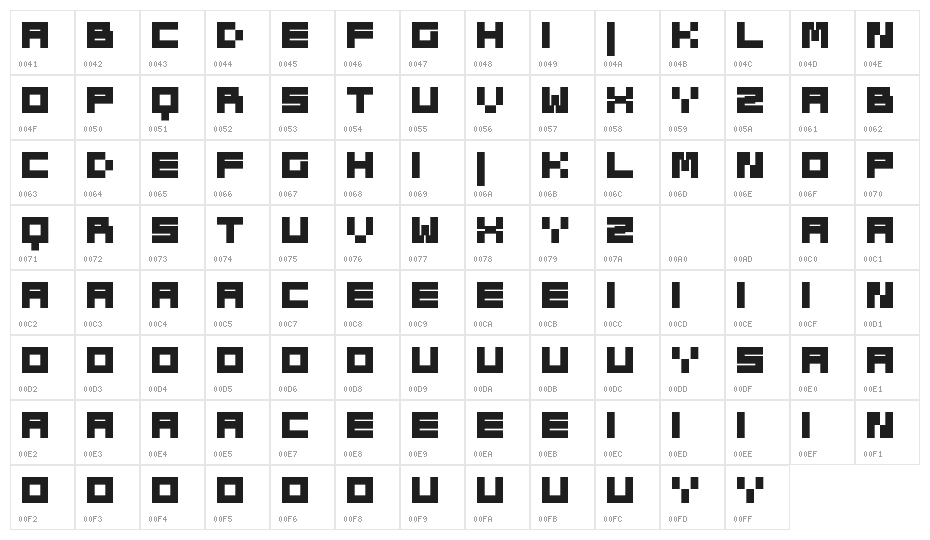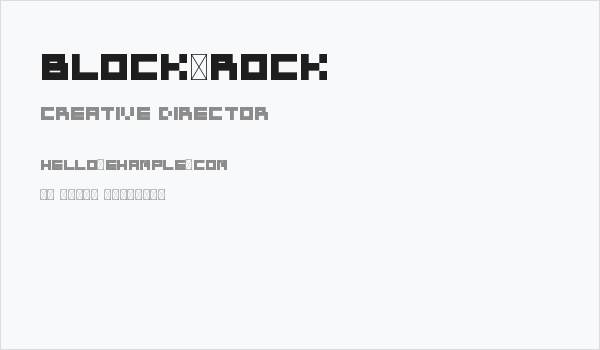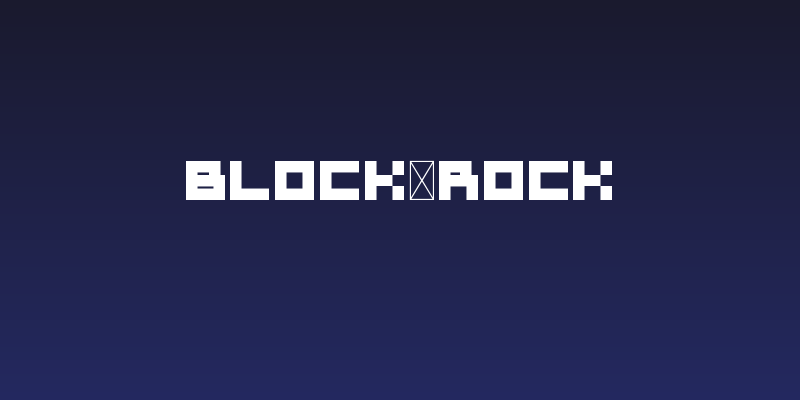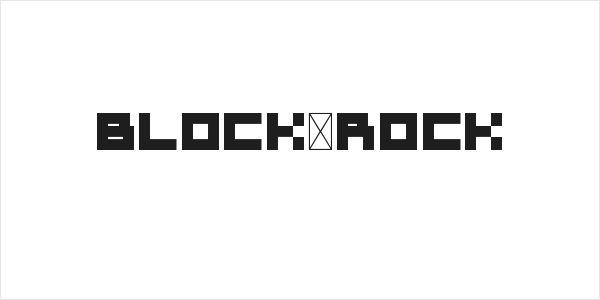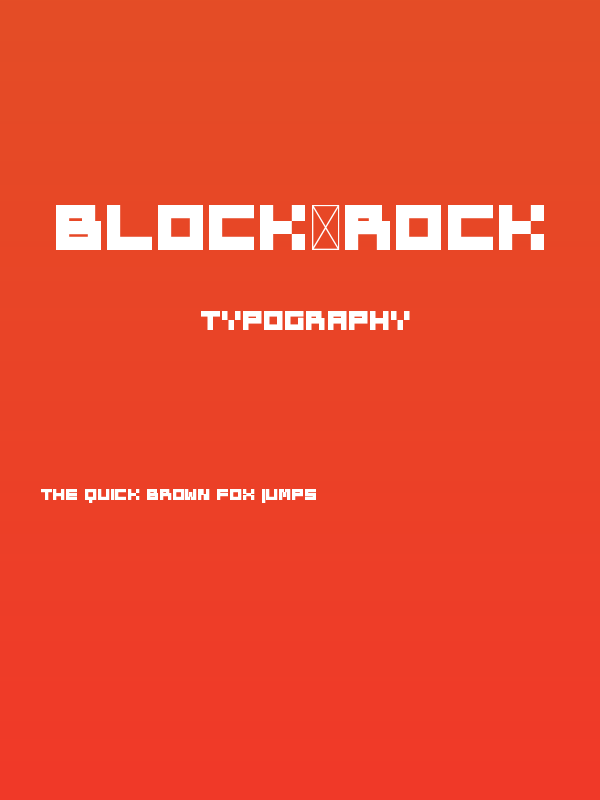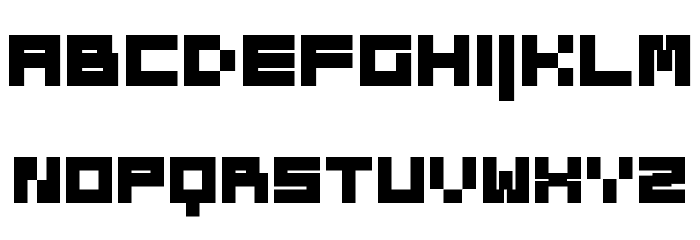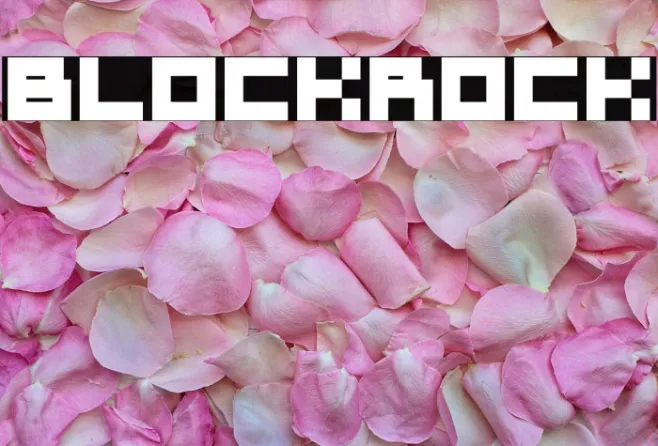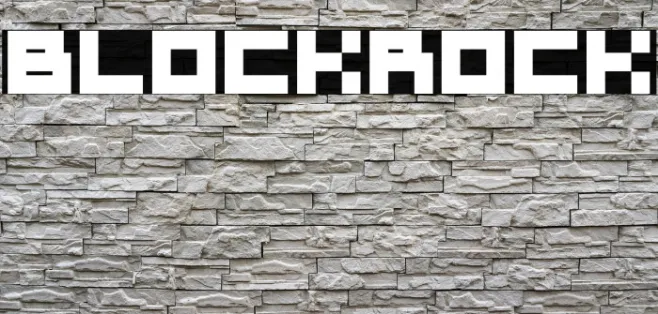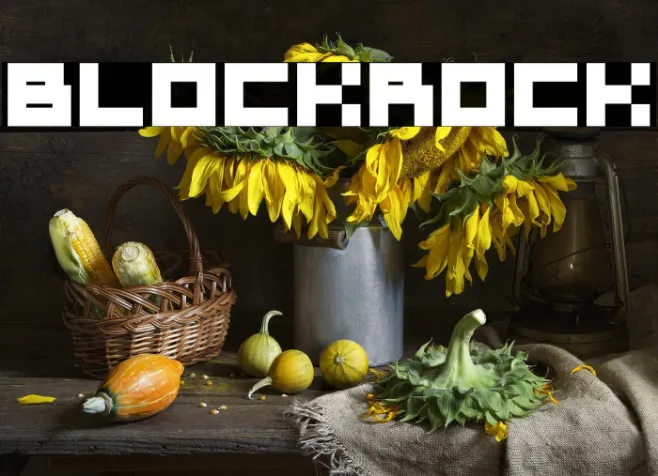
Block-Rock Font
Block-Rock Description
This font features a bold, blocky design with a distinctly geometric style. Each character is constructed with sharp angles and straight lines, creating a uniform and cohesive appearance. The uppercase letters are particularly striking, with a strong presence that commands attention. The font's design is reminiscent of digital or pixel art, making it ideal for projects that require a modern, tech-inspired aesthetic. The consistent thickness of the strokes throughout the characters ensures readability, while the lack of curves gives it a mechanical feel. This font is perfect for making a bold statement in any design project.
| Proposed Projects | Ideal for video game graphics, tech-themed posters, and digital media branding. |